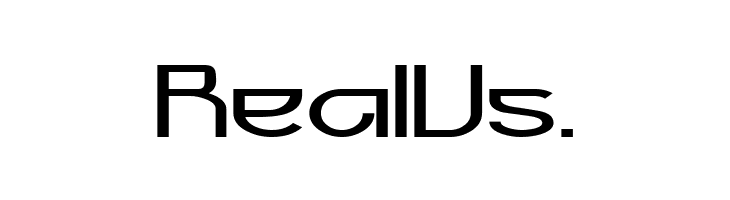
Super Cursed Font
- Font: Super Cursed
( Fonts by Rich Gast - www.greywolfwebworks.com Commercial Fonts Font )
A futuristic, geometric font with clean lines and angular shapes.